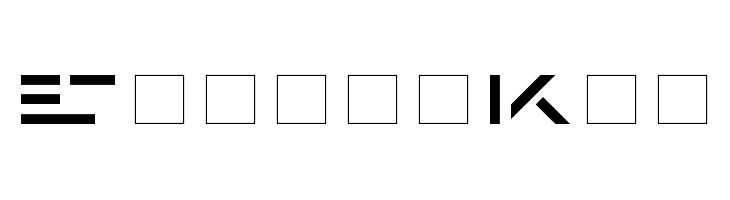
A bold, hand-painted style font with dynamic, irregular strokes.
A pixelated, retro-style font with a digital, nostalgic feel.
A modern-vintage font with tall, narrow letterforms and sharp serifs.
A playful, handwritten script font with rounded, flowing forms.
A dynamic and expressive script font with bold, cursive letterforms.
A futuristic, geometric font with sharp angles and segmented design.
A futuristic, geometric font with sharp angles and distinct cutouts.
A casual, handwritten style font with a playful and informal appearance.
A dynamic, expressive handwritten font with fluid cursive strokes.
A geometric, abstract font resembling semaphore signals with a modern, cryptic style.